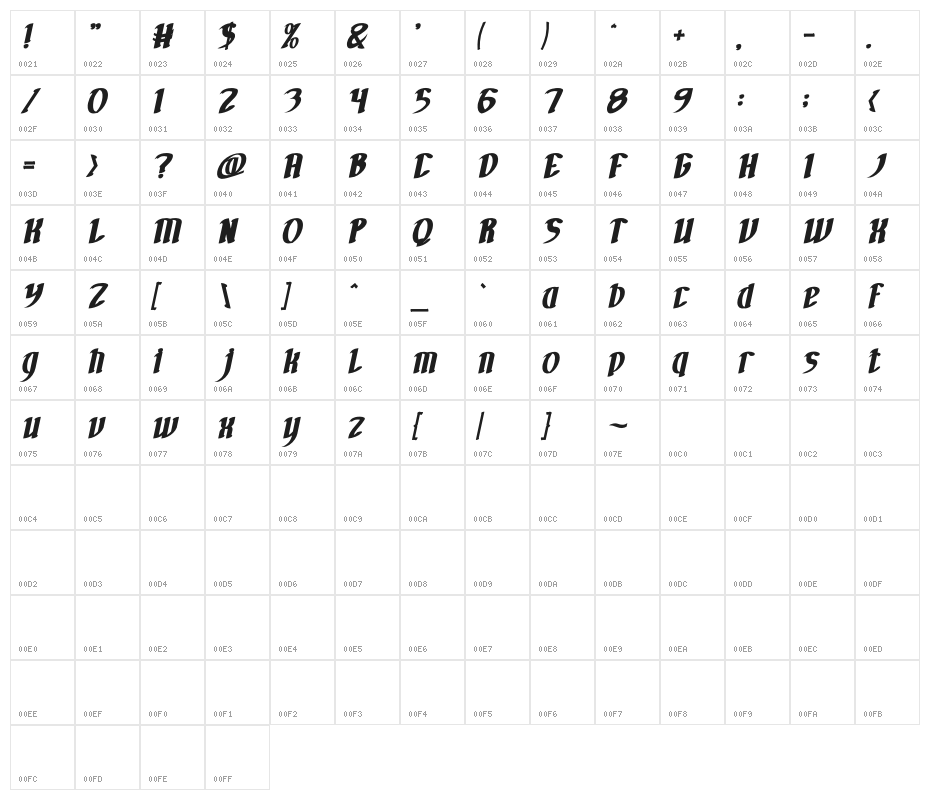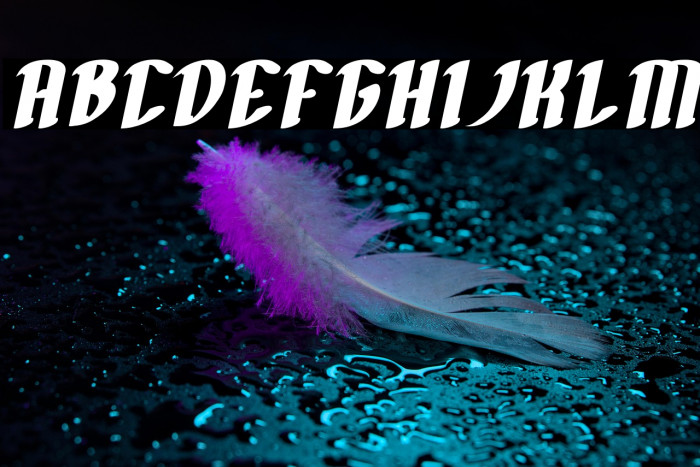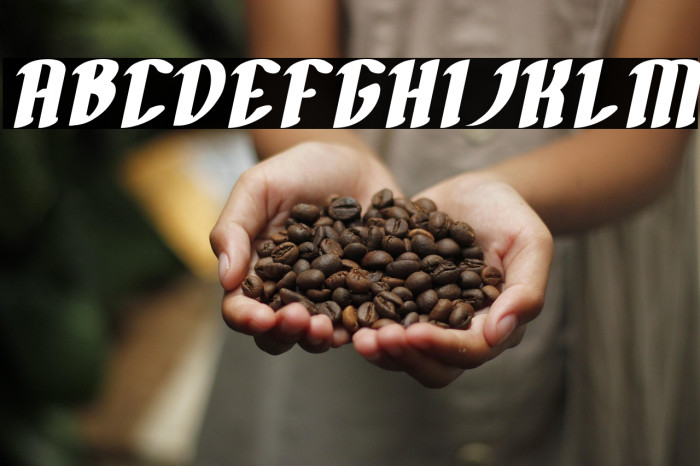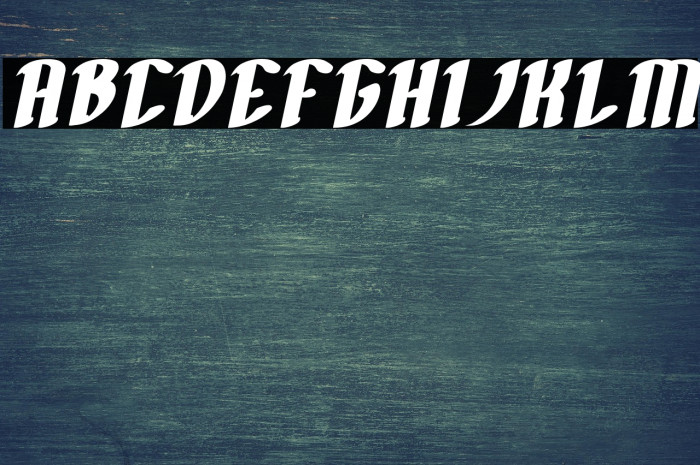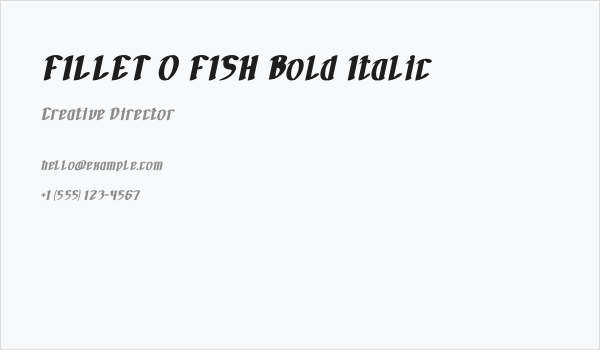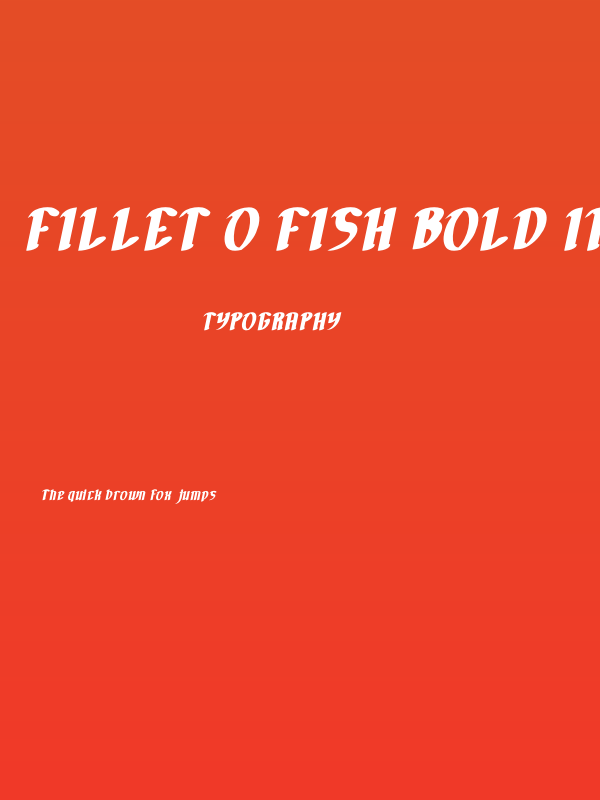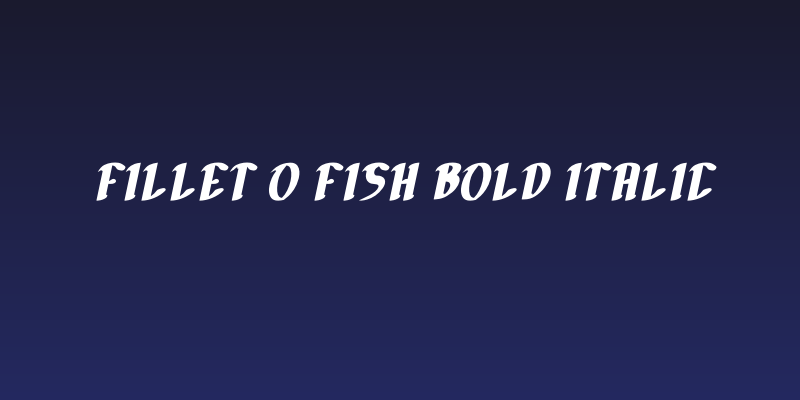
FILLET O FISH Bold Italic Font
FILLET O FISH Bold Italic Description
This font features a bold and italicized style with a strong, dynamic presence. The characters are designed with a slight slant, giving them an energetic and forward-moving appearance. The strokes are thick and consistent, providing a sense of strength and stability. The uppercase and lowercase letters maintain a uniform style, with the lowercase letters slightly smaller but equally bold. The numbers and special characters are crafted to match the overall aesthetic, ensuring a cohesive look across all text. This font is ideal for making a statement, with its eye-catching and assertive design.
| Proposed Projects | Ideal for branding, headlines, posters, and any project needing a bold, impactful typeface. |